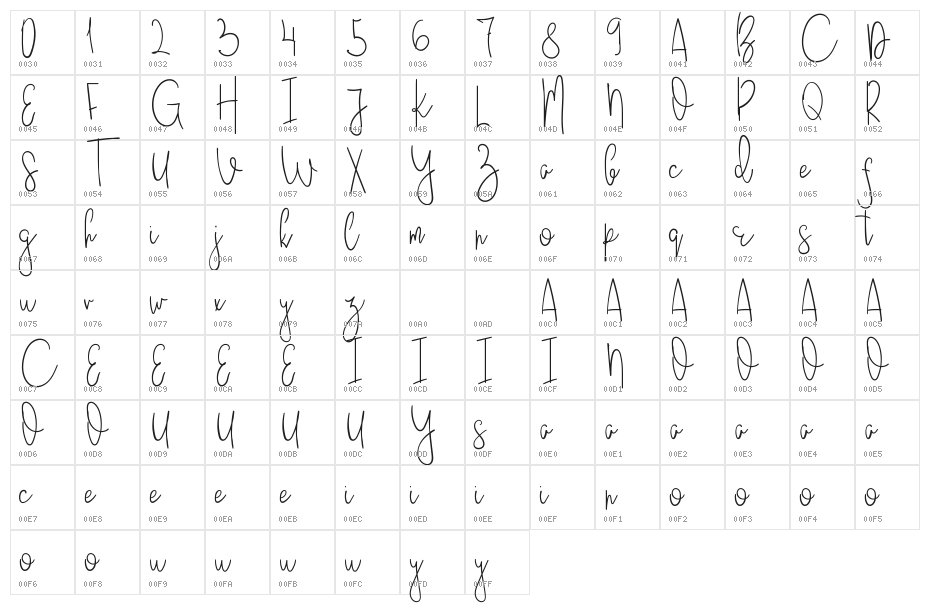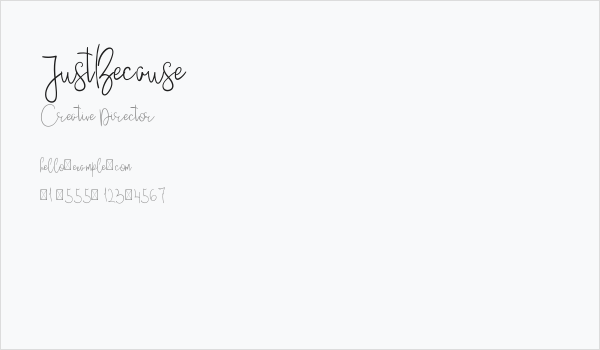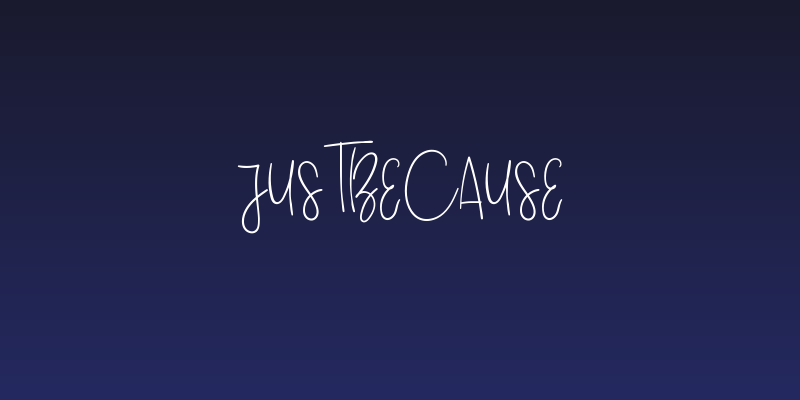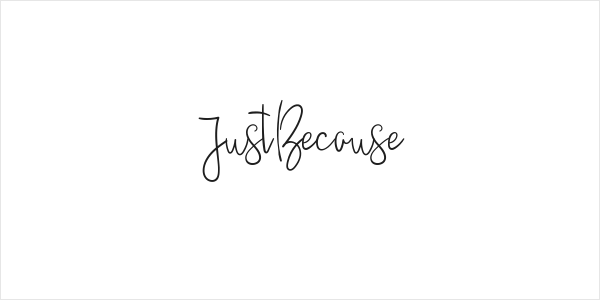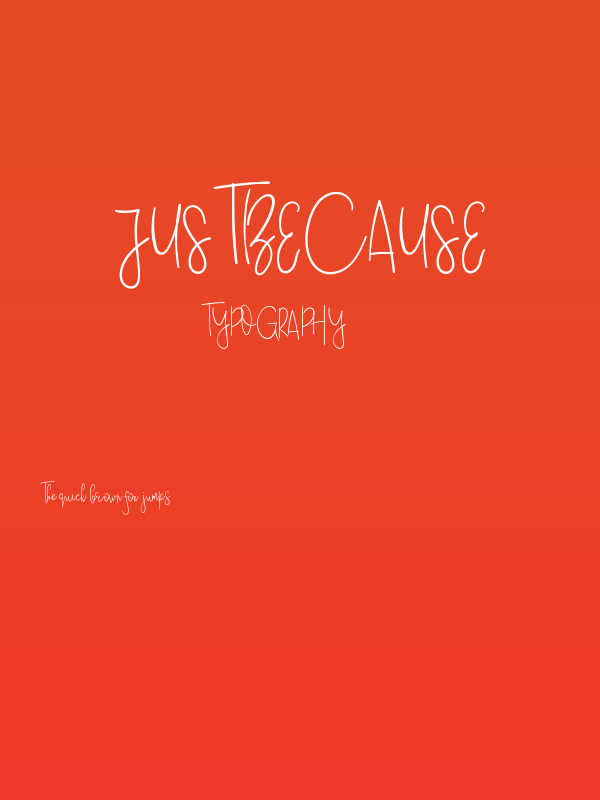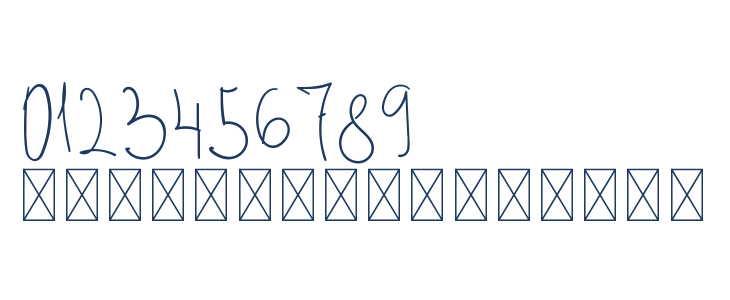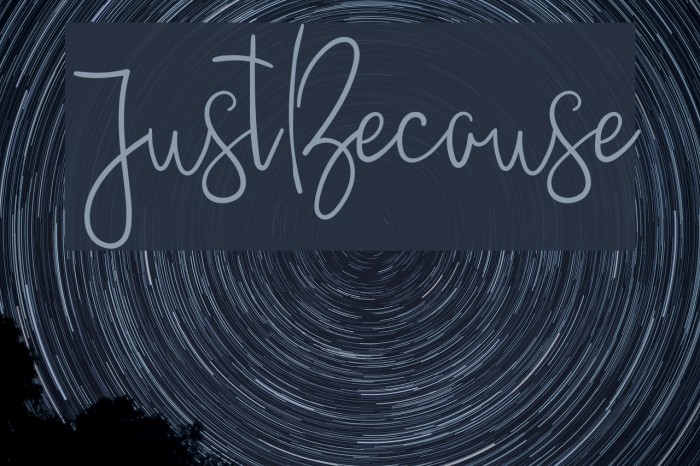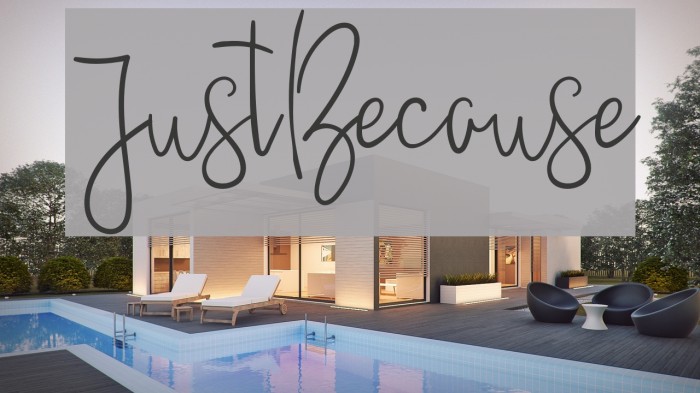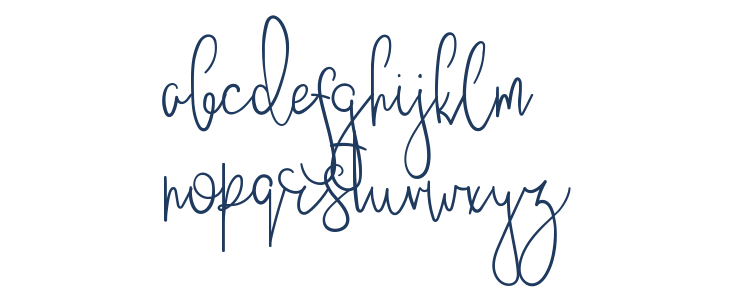
JustBecause Font
JustBecause Description
This font features a playful and whimsical handwritten style, characterized by its tall, narrow letterforms and irregular strokes. The uppercase letters are particularly elongated, giving a sense of height and elegance, while the lowercase letters maintain a consistent flow with a slightly more relaxed appearance. The numerals follow the same playful style, with unique curves and loops that add to the font's charm. Special characters are creatively integrated, maintaining the overall aesthetic. The font's informal and artistic nature makes it ideal for projects that require a personal touch.
| Proposed Projects | Greeting cards, invitations, personal branding, creative posters, and social media graphics. |